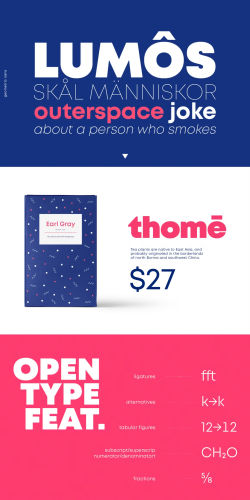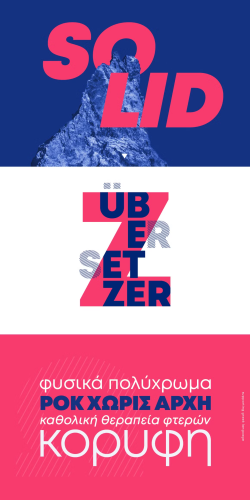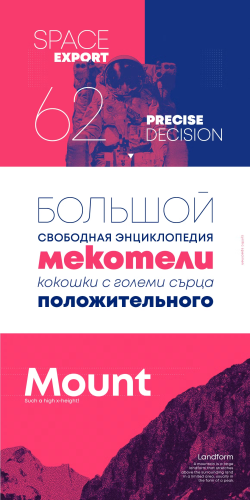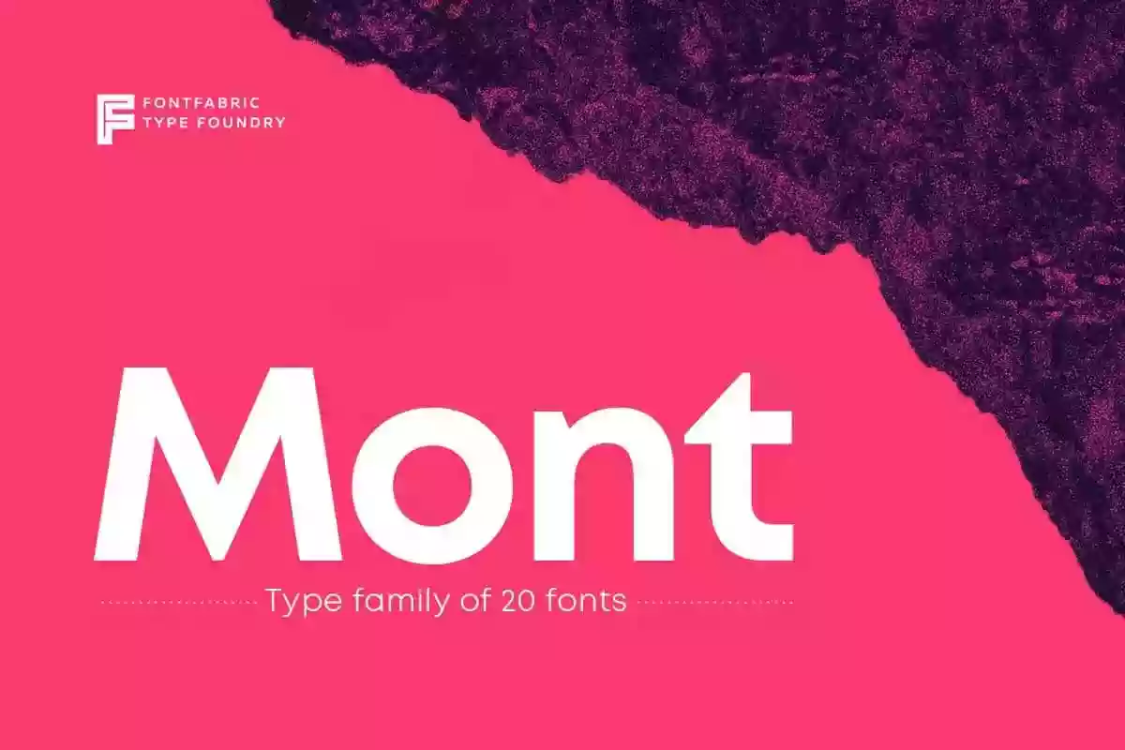
Mont Font
Mont is a geometric sans serif consisting of 10 weights ranging from Hairline to Black with matching italics. It supports Extended Latin, Cyrillic, and Greek — more than 130 languages altogether. The balanced characteristics of Mont, combined with unique details, such as the pointed “t” and the prominent x-height, make it perfect for strong headlines and outstanding logos, but it is also suitable for long text.
Mont has many OpenType features, including tabular figures and advanced typographic features such as ligatures, fractions, case-sensitive forms, superscripts, subscripts, etc. The typefaceʼs versatility and merits make it easy to confront any graphic design challenge, including web, print, motion graphics, etc.
• 744 glyphs in 20 styles;
• Extended Latin, Cyrillic and Greek;
• Perfect for headlines and logos;
• Prominent x-height;
• Distinctive pointed triangular bracketed “t”;
• Coverage of multiple OpenType features;
• Suitable for web, print, motion graphics etc.
Mont Font is a Sans Serif Fonts font that brings a professional and versatile look to your projects. Mont is a geometric sans serif consisting of 10 weights ranging from Hairline to Black with matching italics.